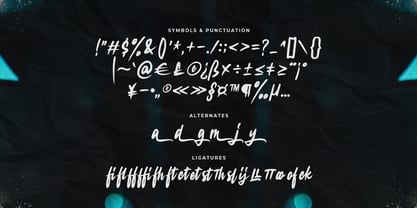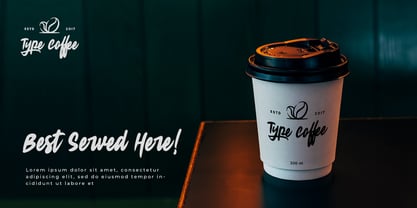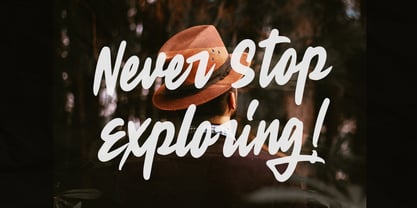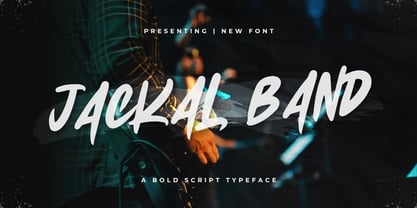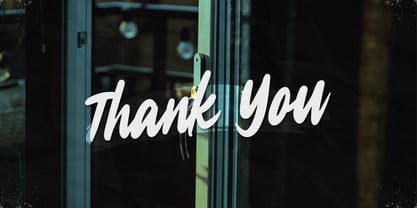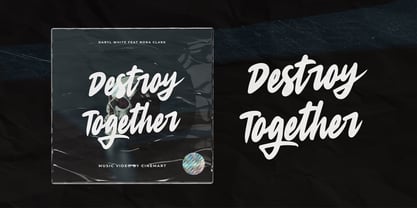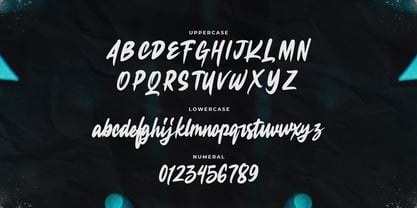
Jackal Band
by Typefactory
The Jackal Band Font Family was designed by Hilmius Akbar and published by Typefactory. Jackal Band contains 1 styles. More about this family
Jackal Band is a bold script handwritten font.
It can be used for various purposes such as logos, headings, t-shirts, letterhead, signage, labels, news, posters, badges and so much more.
Features:
- Uppercase
- Lowercase
- Symbols & Punctuation
- Numeral
- Ligature
- Alternate
- Multilingual Support